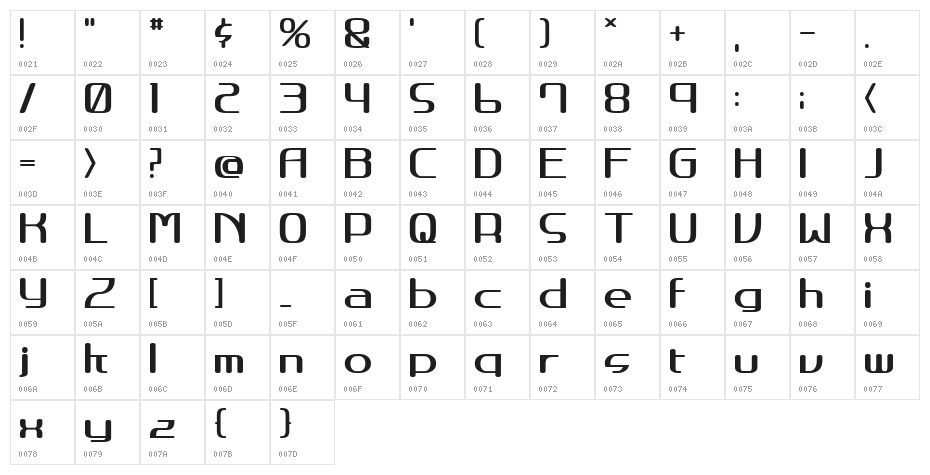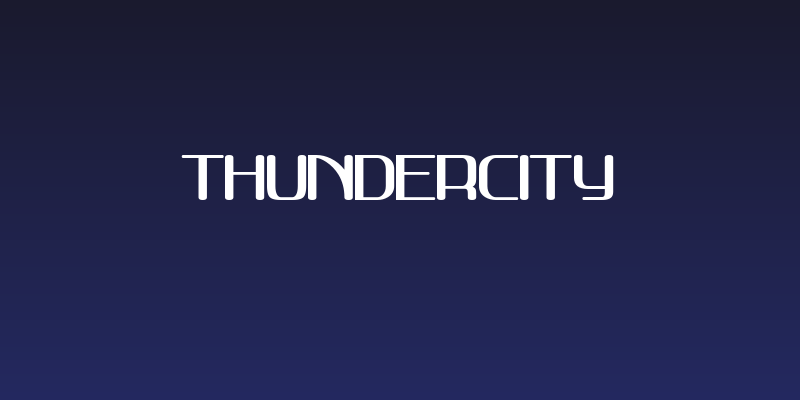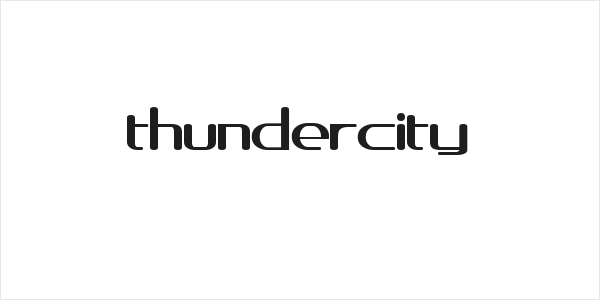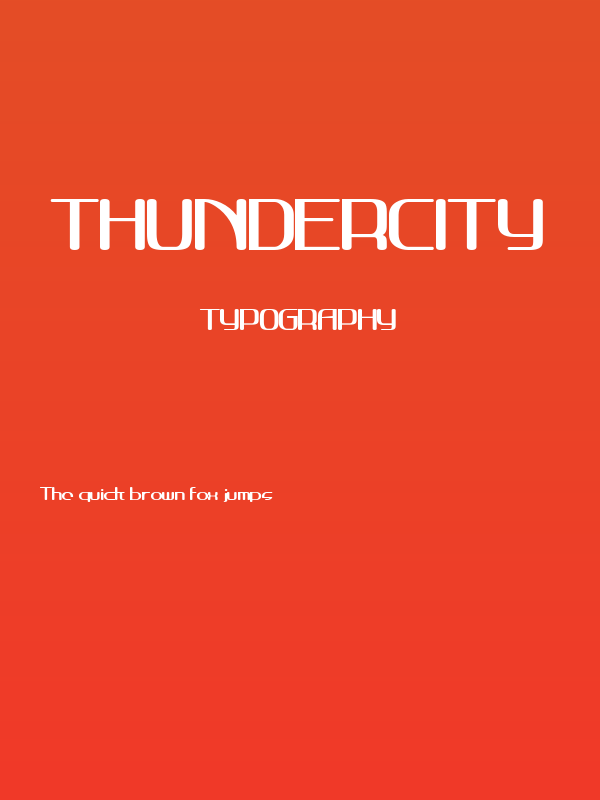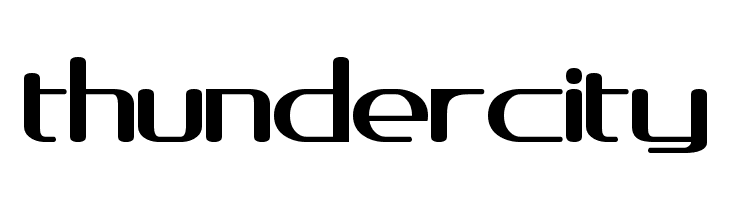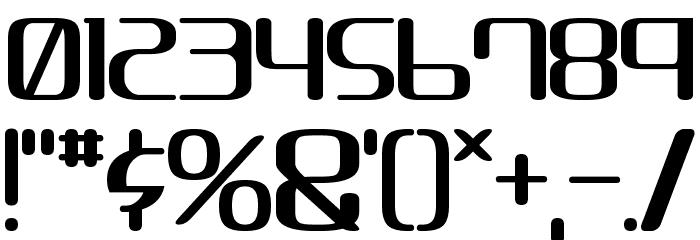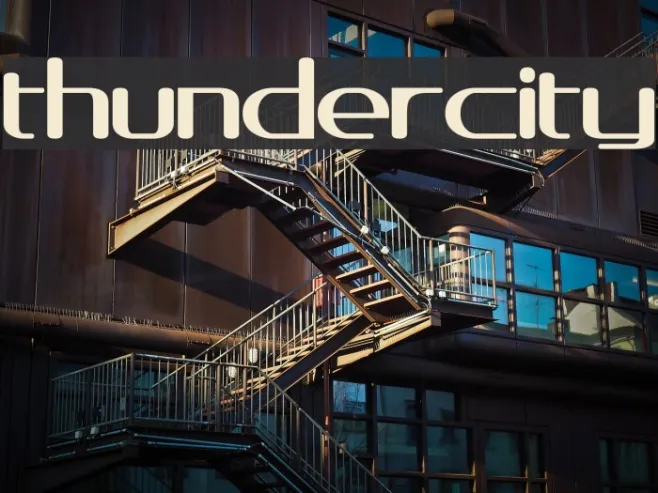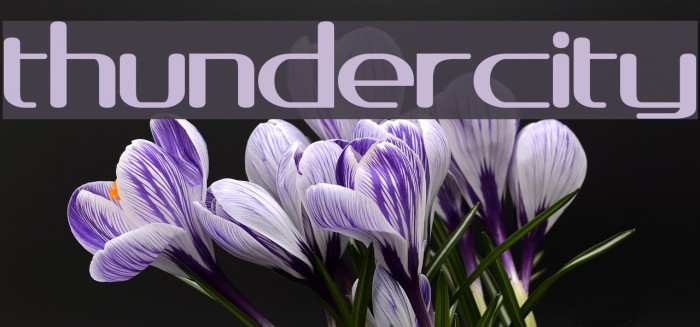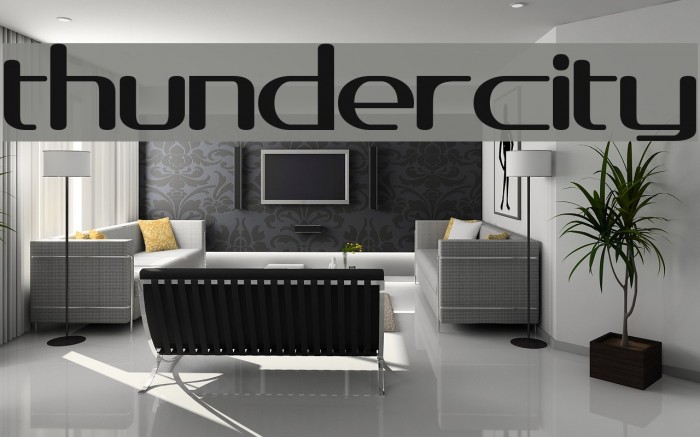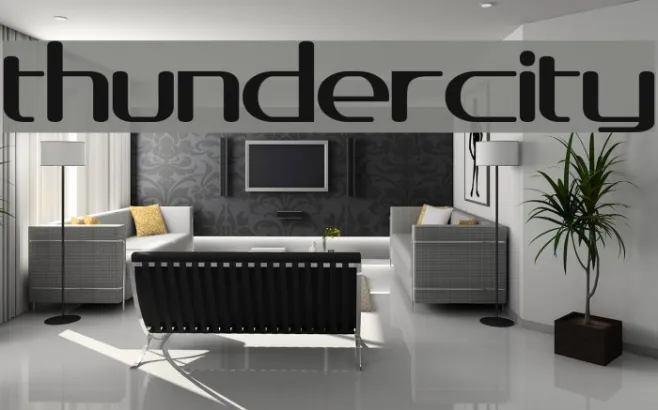
thundercity Font
thundercity Description
This font features a futuristic and geometric design, characterized by rounded edges and a sleek, modern appearance. The uppercase and lowercase letters maintain a consistent style, with a focus on smooth curves and minimalistic lines. The numerals are equally stylized, offering a cohesive look across all characters. Special characters are designed to match the overall aesthetic, making this font suitable for a variety of creative applications. Its unique style is both eye-catching and versatile, ideal for projects that require a modern and innovative touch.
| Overall Style | Futuristic |
| Use Case | Headlines, Logos, Branding |
| Proposed Projects | Ideal for technology branding, sci-fi themed projects, modern advertising, and innovative product packaging. |